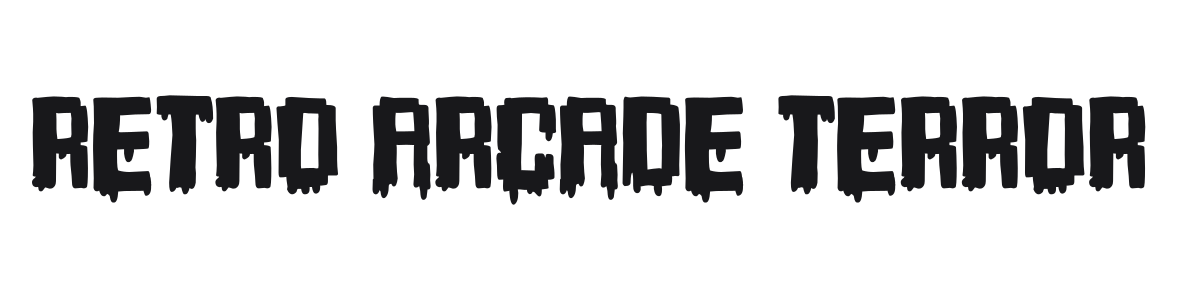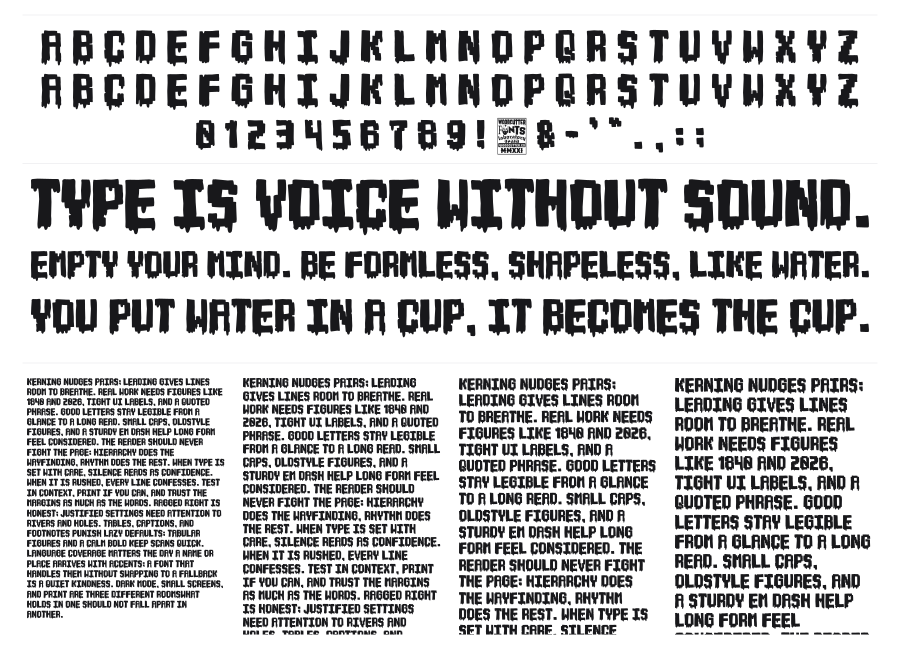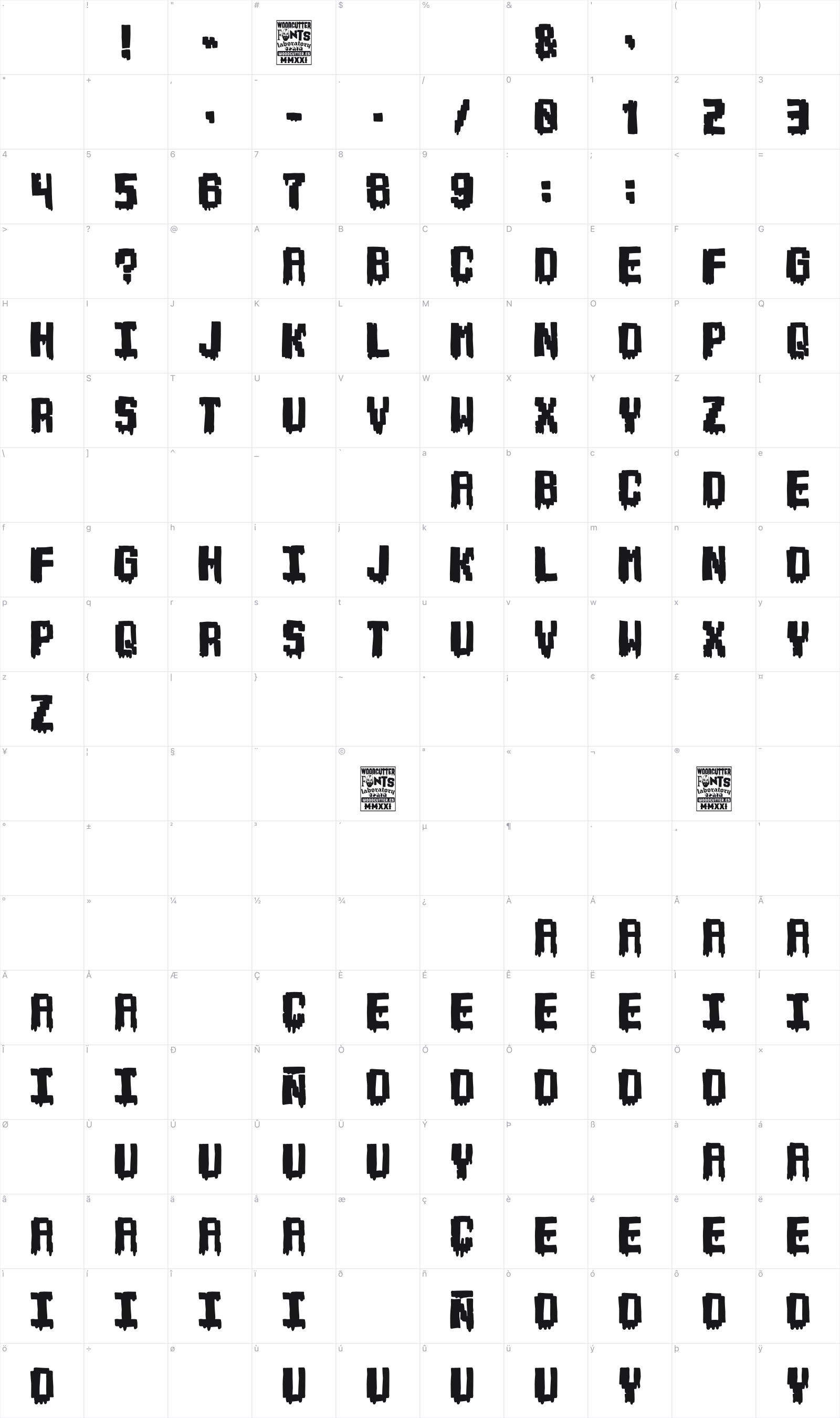
Retro Arcade Terror
Retro Arcade Terror is a bold, condensed display font that mashes up blocky arcade-game lettering with classic horror-drip styling. The uniform heavy strokes have distressed, irregular edges and ink drips that give the design its unsettling character. It lives on posters, game titles, and anything that needs to feel equally retro and creepy.